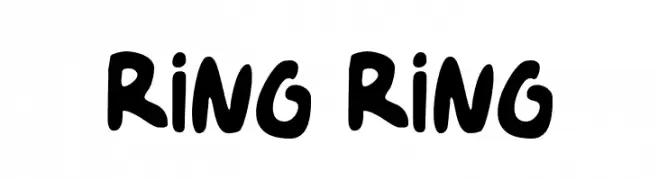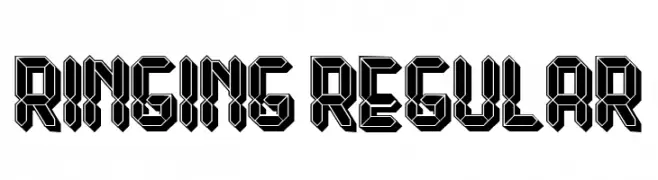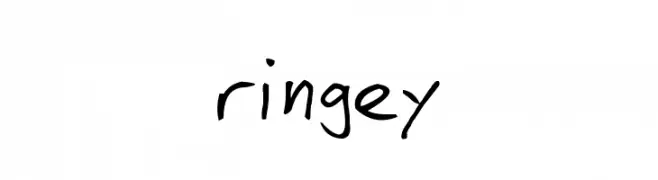
• Ring Matrix Two
A decorative font with characters made of interconnected rings, offering a digital and futuristic look.
• Ring Ring
A bold, playful font with rounded, hand-drawn letterforms.
• Ringer
A modern, geometric font with rounded edges and consistent line thickness.
• Ringer Bold
A modern, geometric font with rounded edges and a bold, minimalist style.
• Ringer ExtraBold
A bold, rounded font with a modern and playful aesthetic.
• Ringer ExtraLight
A modern, ultra-lightweight font with a minimalist and geometric design.
• Ringer Light
A modern, geometric font with thin lines and a minimalist design.
• ringey
• Ringing Regular
A bold, geometric font with a three-dimensional, futuristic design.
• Ringlead
A bold, brush-style font with a dynamic, hand-drawn appearance.